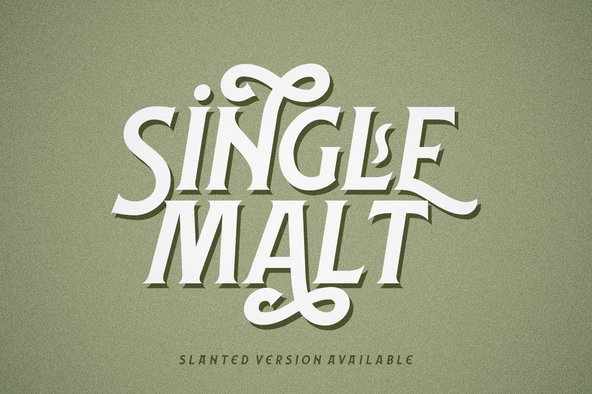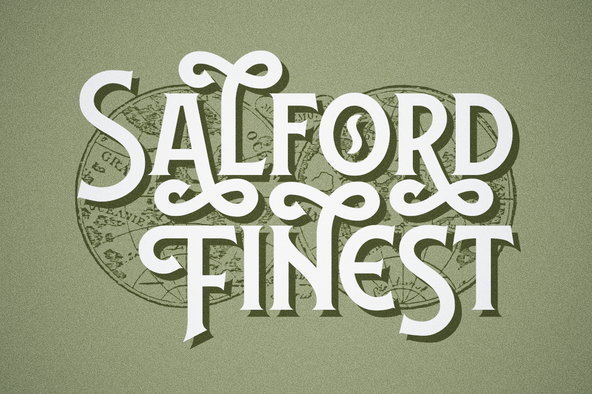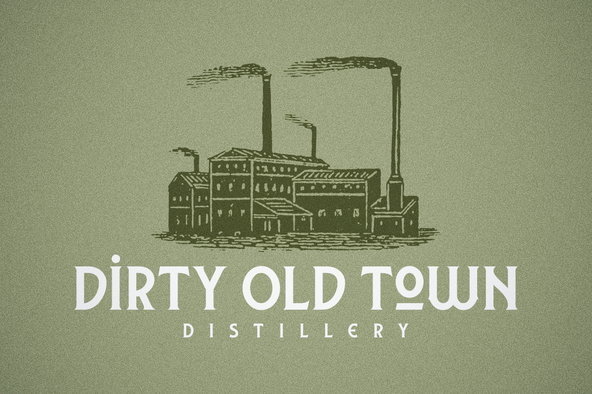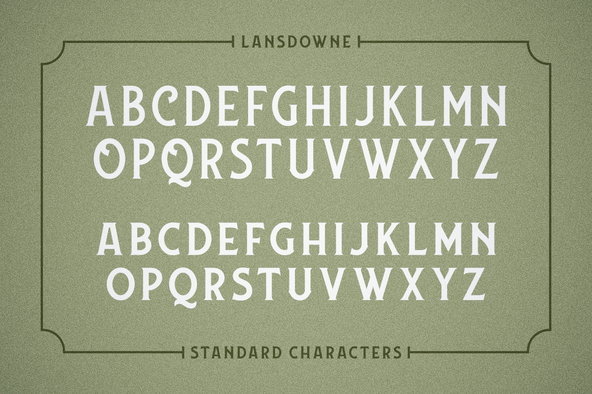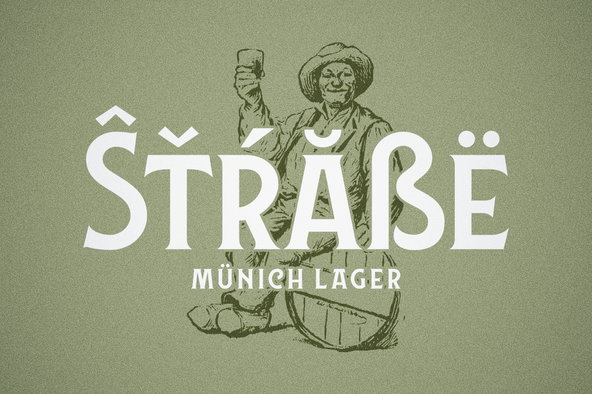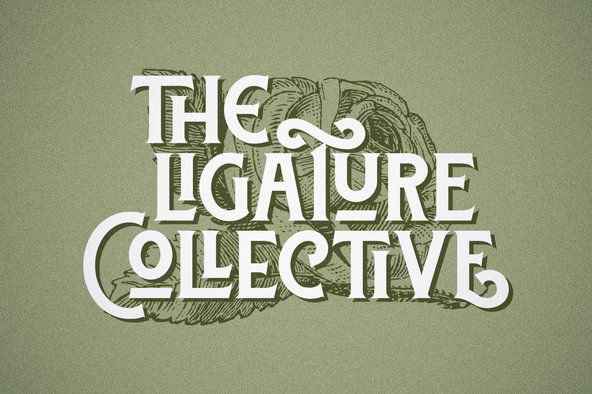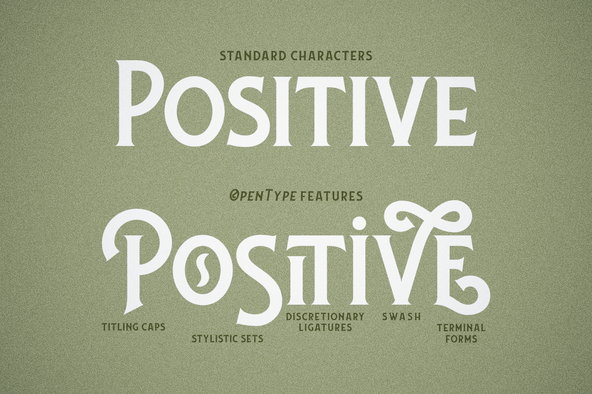
Lansdowne Font
Lansdowne embodies a vintage aesthetic, capturing the spirit of classic advertisement lettering with a modern twist. This all-caps typeface offers over 470 glyphs, providing versatility and boldness without losing its retro charm. Each character is meticulously crafted, ensuring a unique balance between sharpness and a timeless, classic touch. To fully utilize Lansdowne's sophisticated features, software supporting OpenType is recommended, such as Adobe Photoshop or Illustrator. Embrace the full potential of this typeface through the Glyphs panel and enhance your design projects with its distinct style.Lansdowne: Vintage All-Caps Typeface